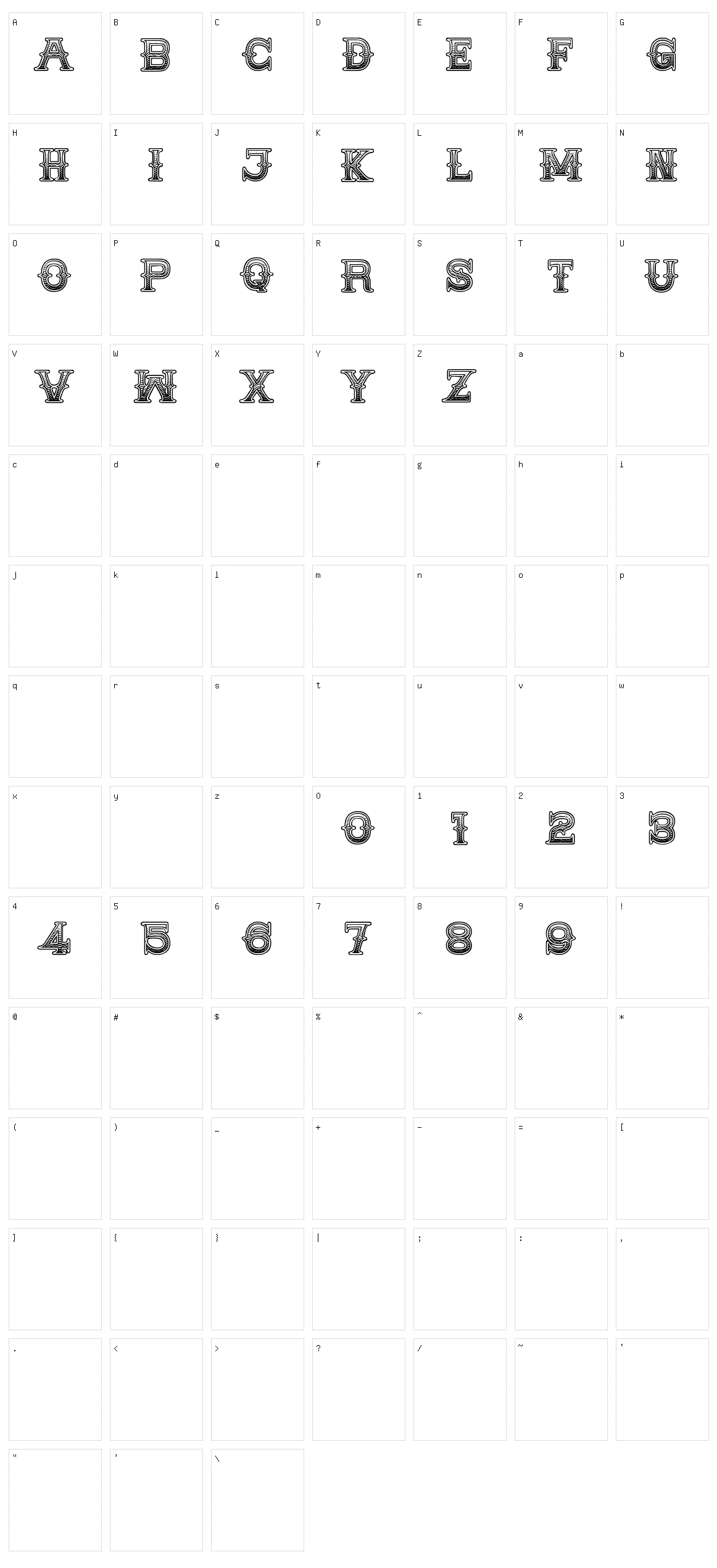
The free font Medicine Show Caps is carefully designed by Anthony Robinson, showcasing a thoughtful balance of creativity and usability and falls under the Western font style. When you download the ZIP file, it contains only 39.76 KB of font files, making it lightweight and quick to download. Please review the license details below to understand permitted usage and distribution rights. If license information is not available, we recommend using this font for personal projects only or contacting the author directly for commercial usage permissions.